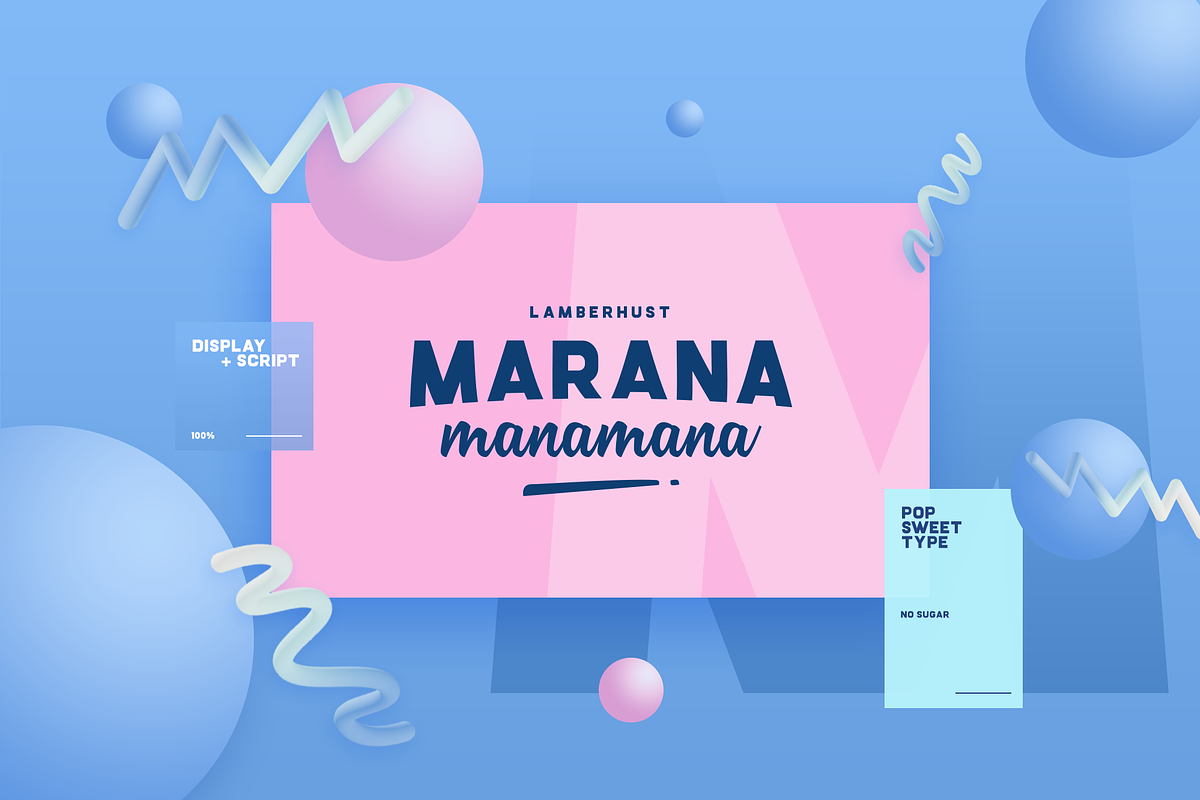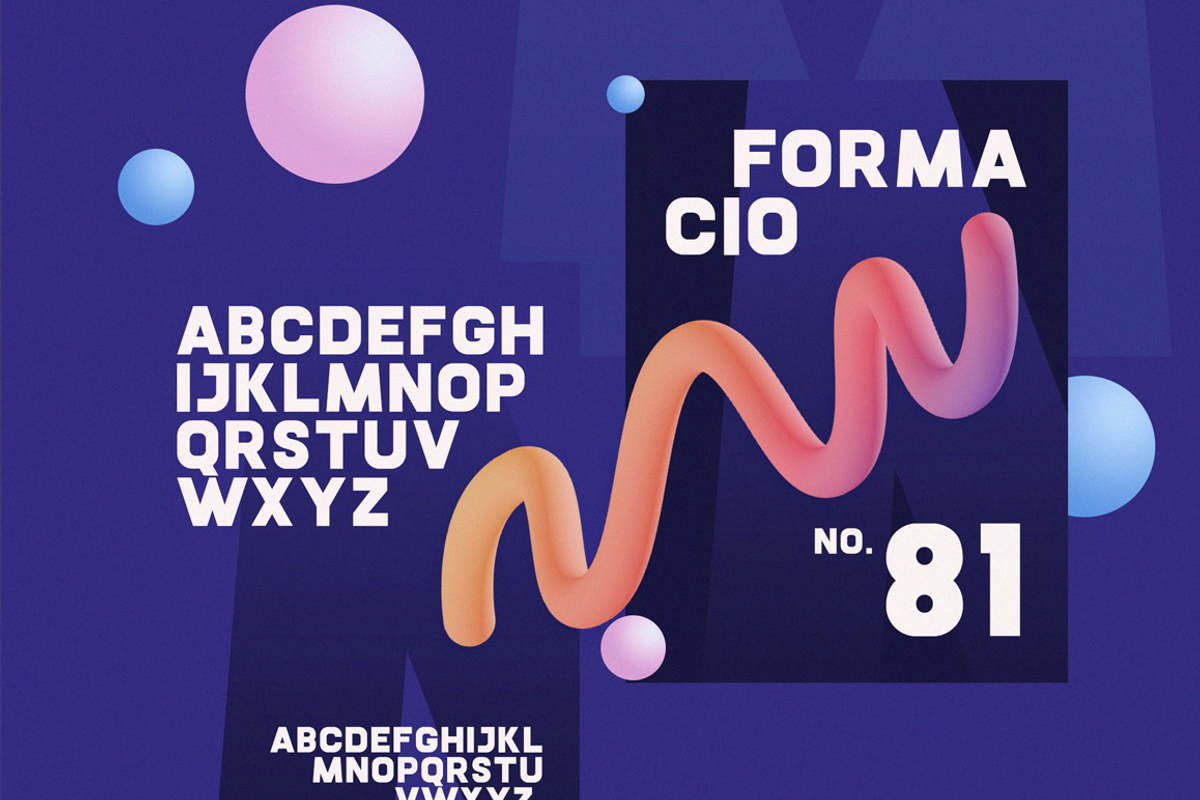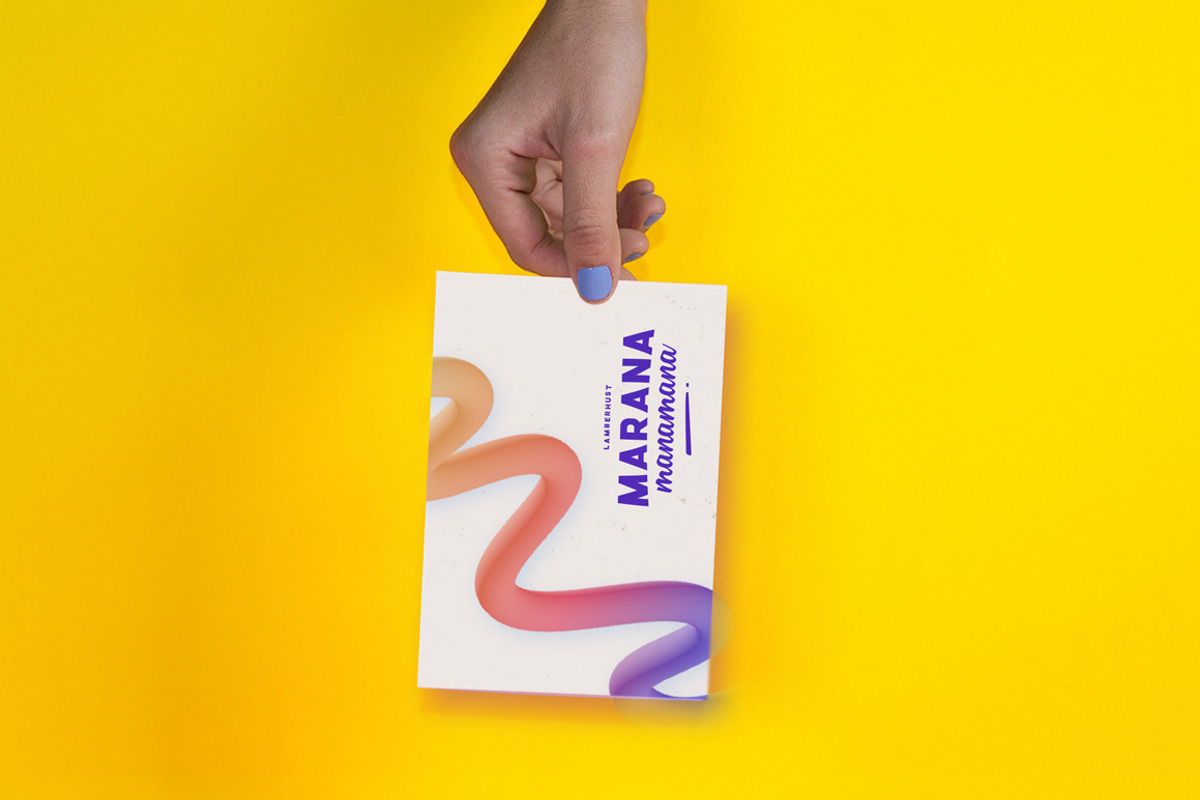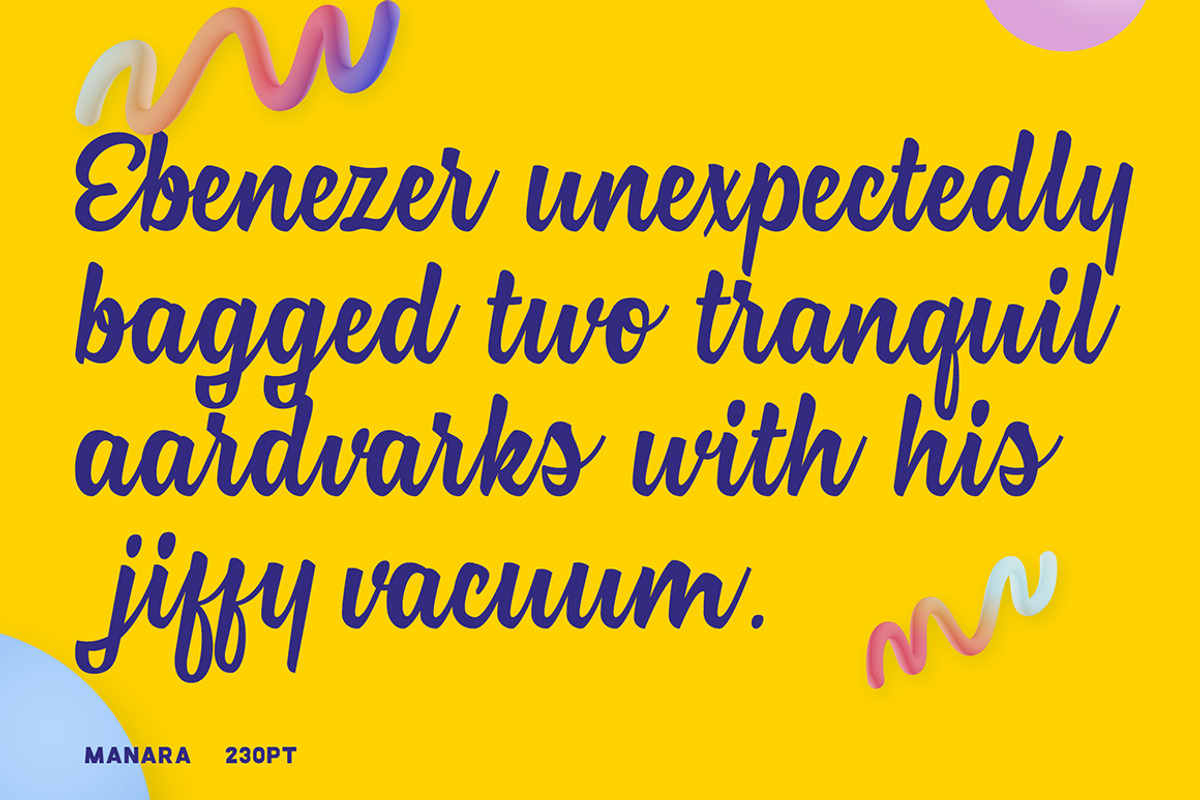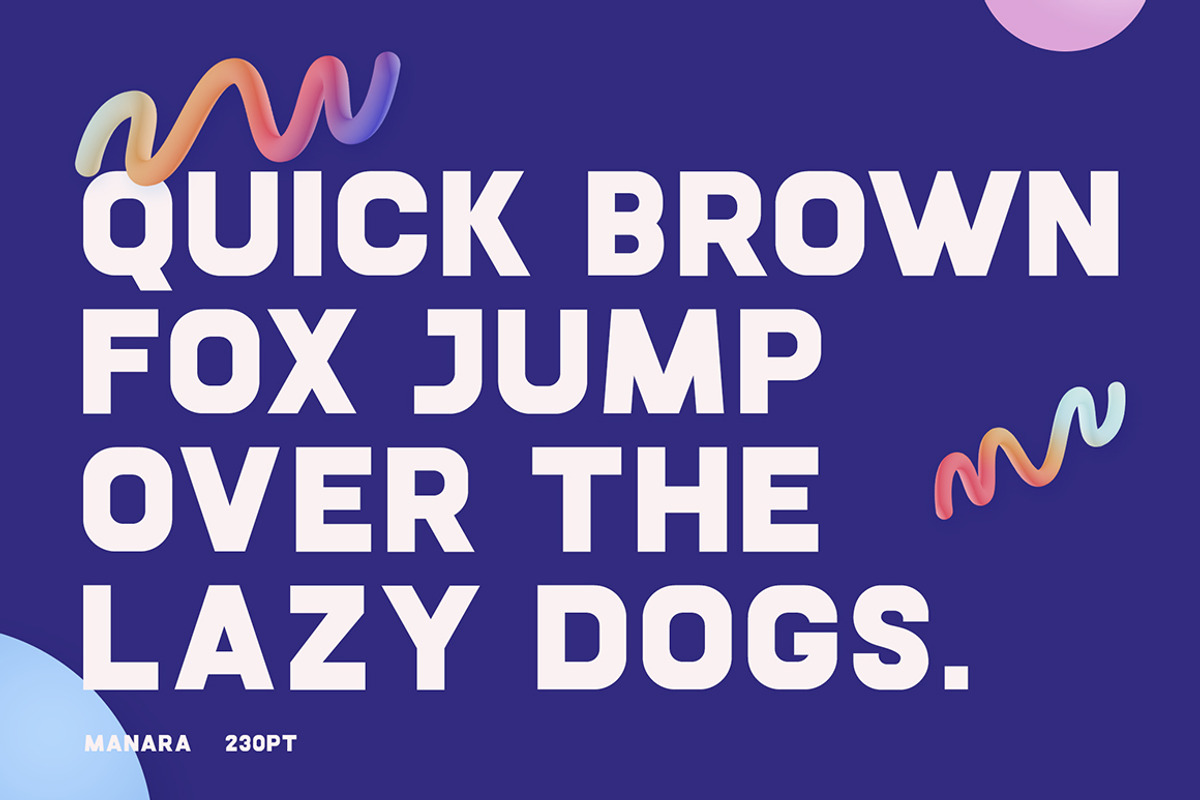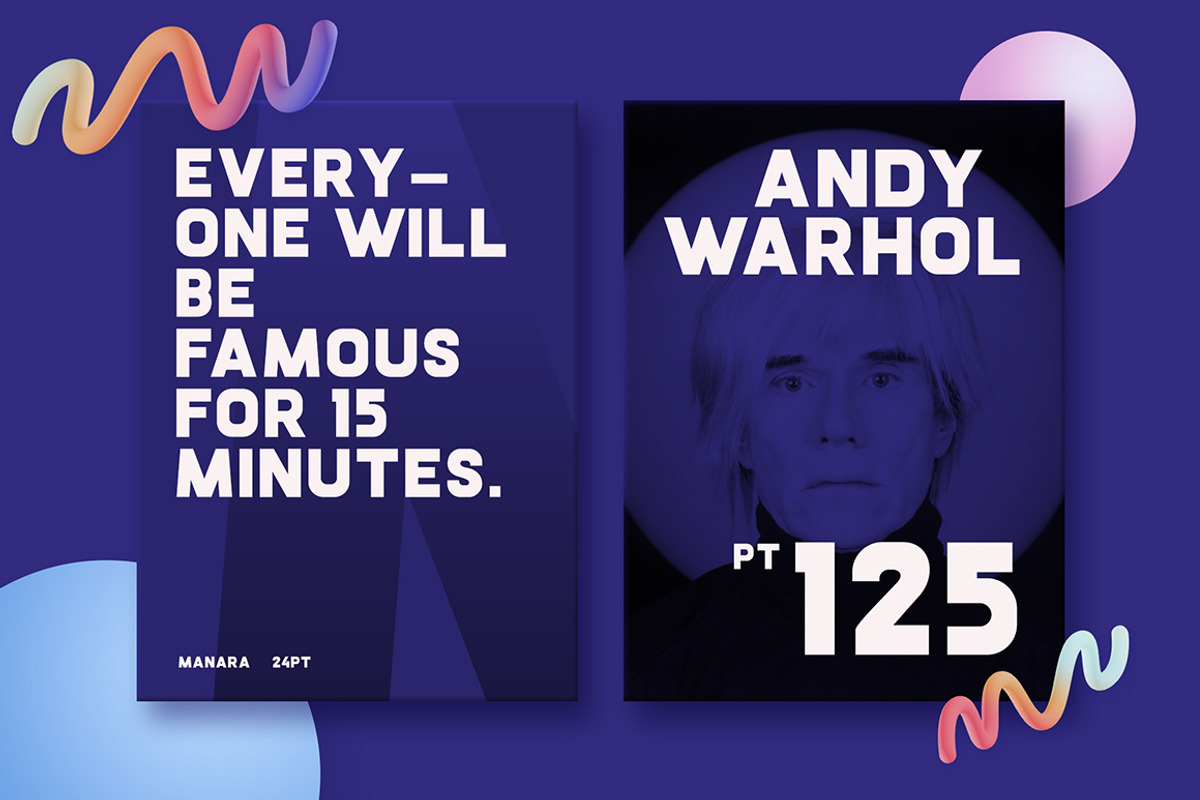
Marana Font Duo
Marana Font Duo by RKS-Studio is a font selected for branding, posters, packaging, typography.
Why Marana Font Duo is worth a look
Marana Font Duo by RKS-Studio fits naturally into Branding, posters, packaging, typography.